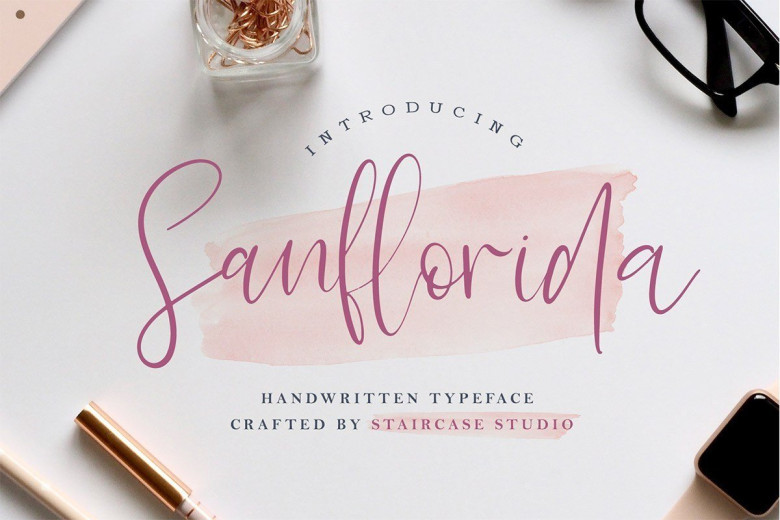
Sanflorida Handwritten Script Font
Sanflorida Font is modern handwritten script font, every single letters have been carefully crafted to make your text looks beautiful. With modern script style this font will perfect for many different project ex: logo, photography, watermark, quotes, blog header, poster, wedding, branding, logo, fashion, apparel, letter, invitation, stationery, etc.